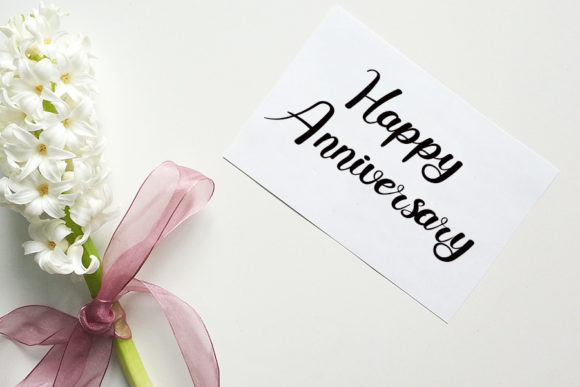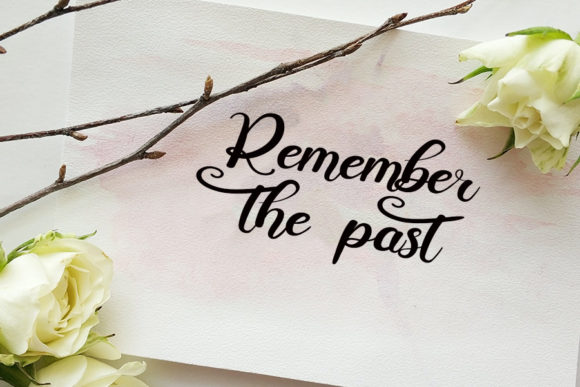
Vintage Signature Font
db-ku.com - Script & Handwritten -- Vintage Signature is a friendly handwritten font, carefully designed to become a true favorite. It maintains its classy calligraphic influences while feeling contemporary and fresh.